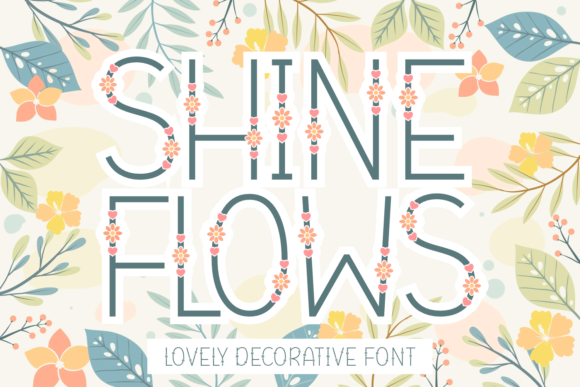
Behold, Shine Flows Font - an enchanting decorative font adorned with exquisite blooms and heart motifs that breathes life into each character. This font is not just a collection of letters and symbols; it's a gateway to a world of limitless creativity, inviting you to embark on a journey where imagination knows no bounds.
With Shine Flows Font, you'll discover a font that is both captivating and playful, embodying the essence of summer's charm. Imagine creating summer greeting cards that radiate warmth and joy, posters that burst with vibrancy, birthday invitations that carry the sweet scent of celebration, and flower shop designs that exude an air of elegance. This font is the perfect companion for children-themed designs, adding a touch of whimsy and delight to every project.
Whether you're crafting heartfelt quotes or simply expressing your thoughts, Shine Flows Font will elevate your words, transforming them into works of art. Its intricate details and meticulous craftsmanship make it a font that stands out, demanding attention and leaving a lasting impression.
But Shine Flows Font is more than just an aesthetically pleasing font; it's a versatile tool that adapts seamlessly to a wide range of design projects. Its delicate flourishes bring a touch of sophistication to formal invitations and certificates, while its playful nature lends itself perfectly to children's books and educational materials.
With Shine Flows Font, the possibilities are endless. It's a font that inspires creativity, ignites imagination, and brings a smile to your face. So, dive into the world of Shine Flows Font and let your creativity flourish. Let your designs bloom with beauty, let your words dance with joy, and let your imagination soar to new heights.
Shine Flows Font - where art and expression come alive.